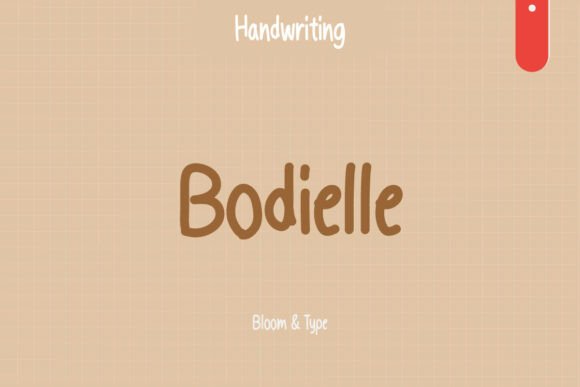
Discover the Charm of Bodielle Font: A Playful and Friendly Handwritten Delight
I’ll never forget the design project that led me to discover Bodielle Font. I was working on a branding project for a cozy coffee shop, and I was struggling to find the perfect font that captured their warm and inviting atmosphere. The client wanted something that felt like a handwritten note, but still looked polished and professional. That’s when I stumbled upon Bodielle, and it instantly became my go-to font for the project.
A Personal Review of Bodielle Font
What I Love About Bodielle ✨
- ✅ Playful and friendly vibe: Bodielle’s soft curves and slightly uneven strokes give it a natural, handcrafted feel that’s perfect for designs that need a personal touch.
- ✅ Multilingual support: This font includes support for multiple languages, making it a great choice for international design projects.
- ✅ Smooth and rounded letterforms: Bodielle’s rounded edges make it highly readable, even at smaller font sizes.
While Bodielle is an amazing font, there are a few things to keep in mind:
- 🤔 Limited use in formal designs: Bodielle’s playful nature makes it better suited for casual and creative projects. It might not be the best choice for formal or corporate designs.
- 🤔 Glyph limitations: While Bodielle includes a range of glyphs and punctuation, it might not have every special character you need. Be sure to check the font’s capabilities before using it in a project.
The Story Behind Bodielle Font
Bodielle Font was designed with the intention of capturing the charm of everyday handwriting. The designer wanted to create a font that felt like a handwritten note, but still looked polished and professional. Inspired by simple journaling moments and creative note-taking, Bodielle was born as a playful and friendly handwritten font that’s perfect for designs that need a personal touch.